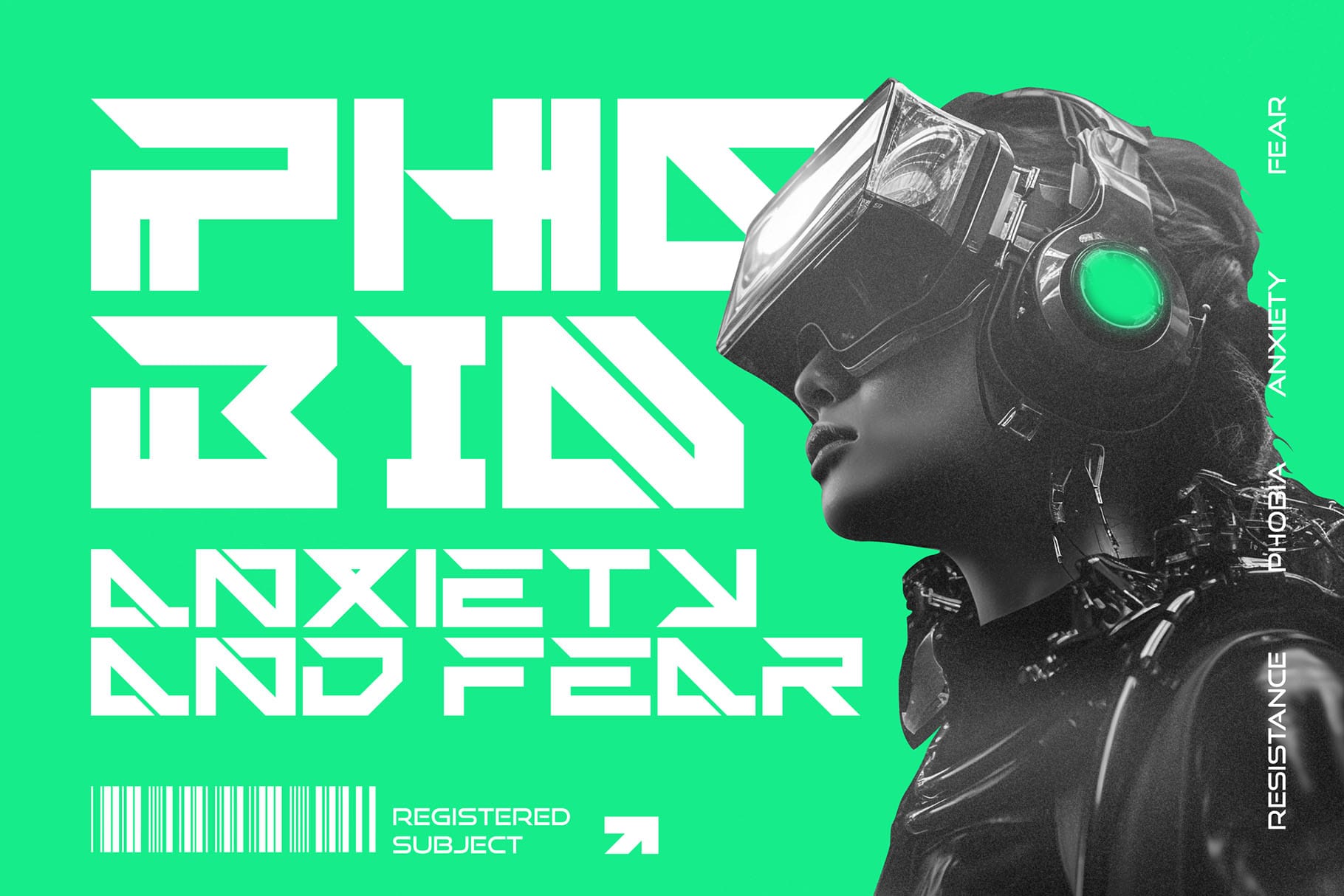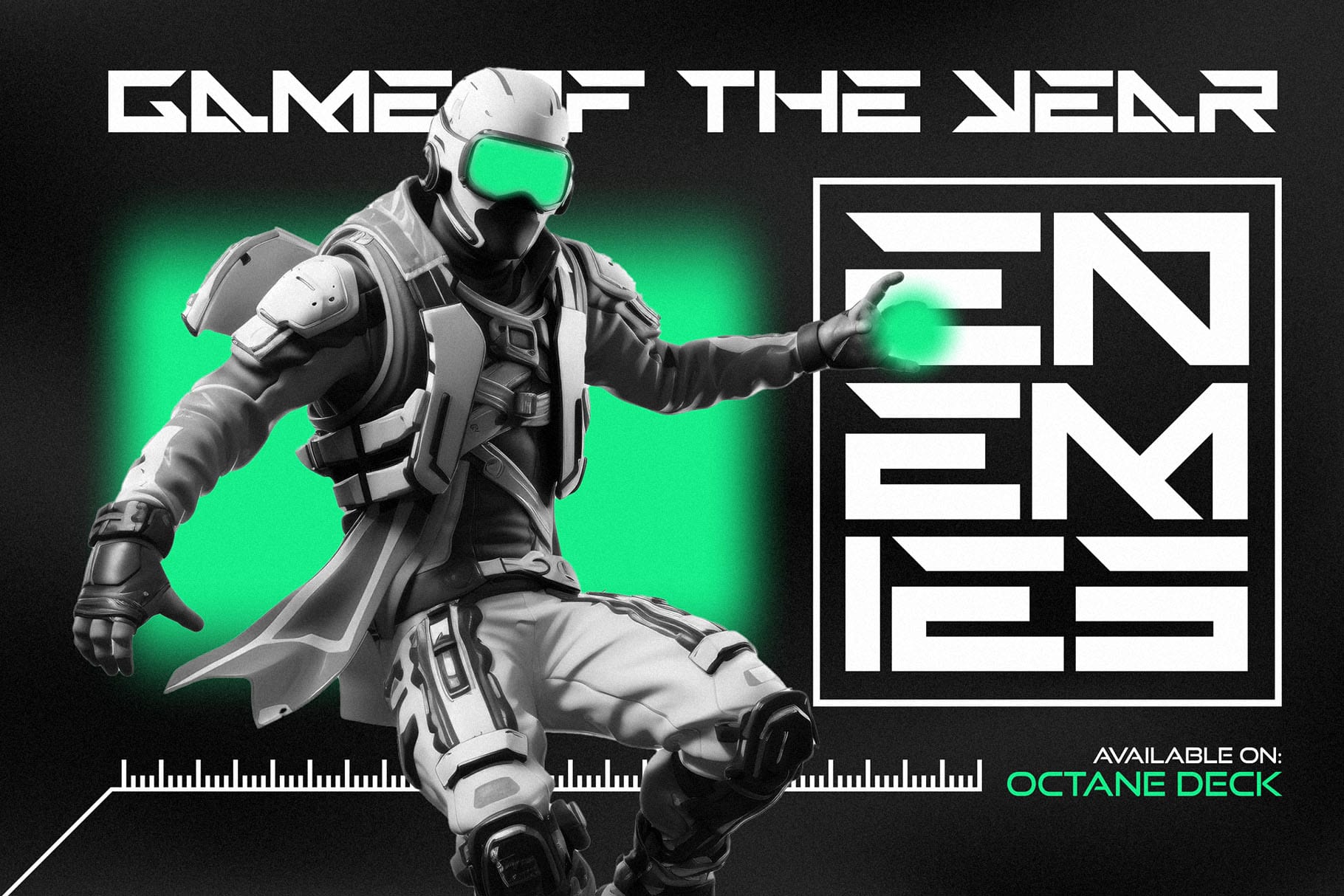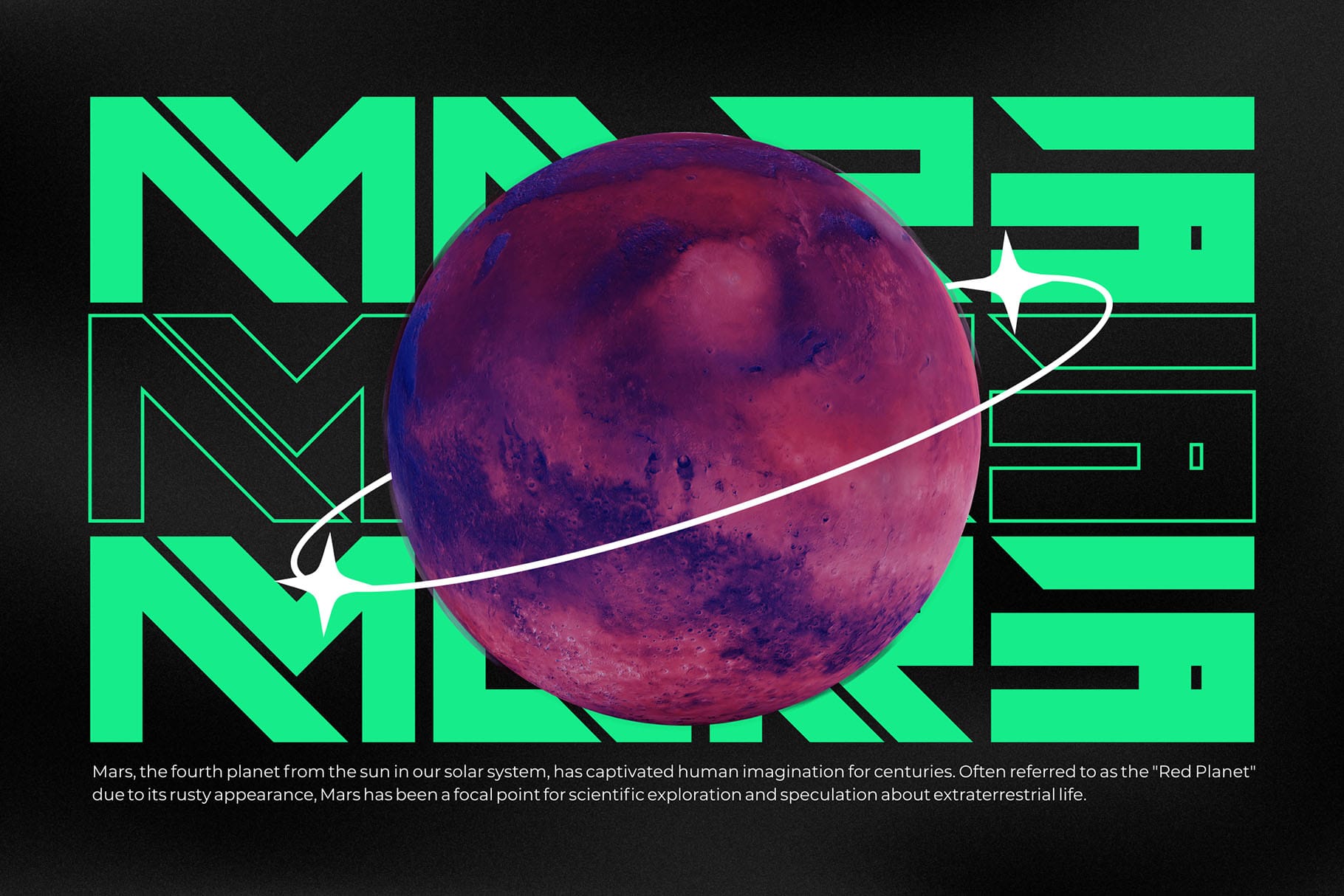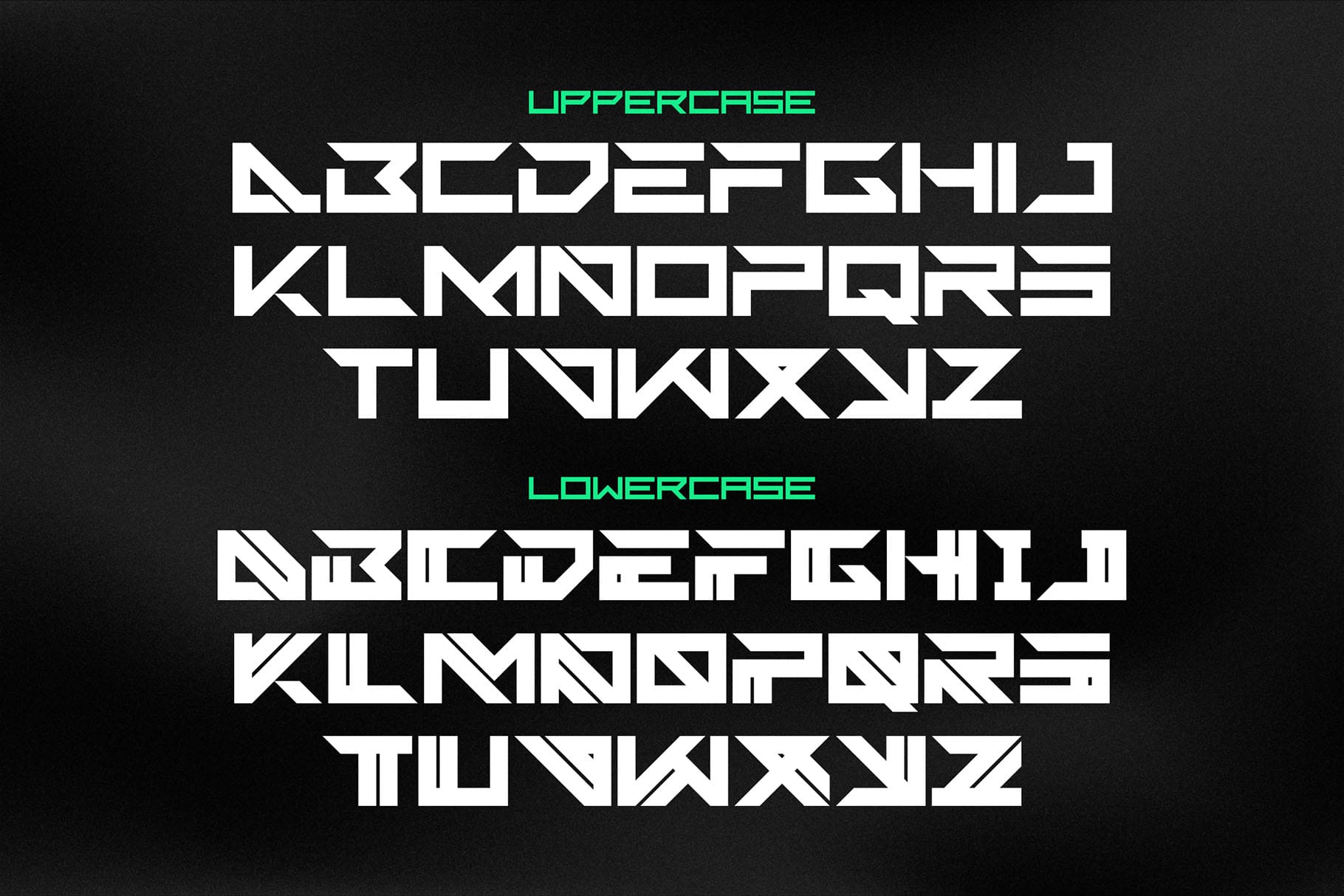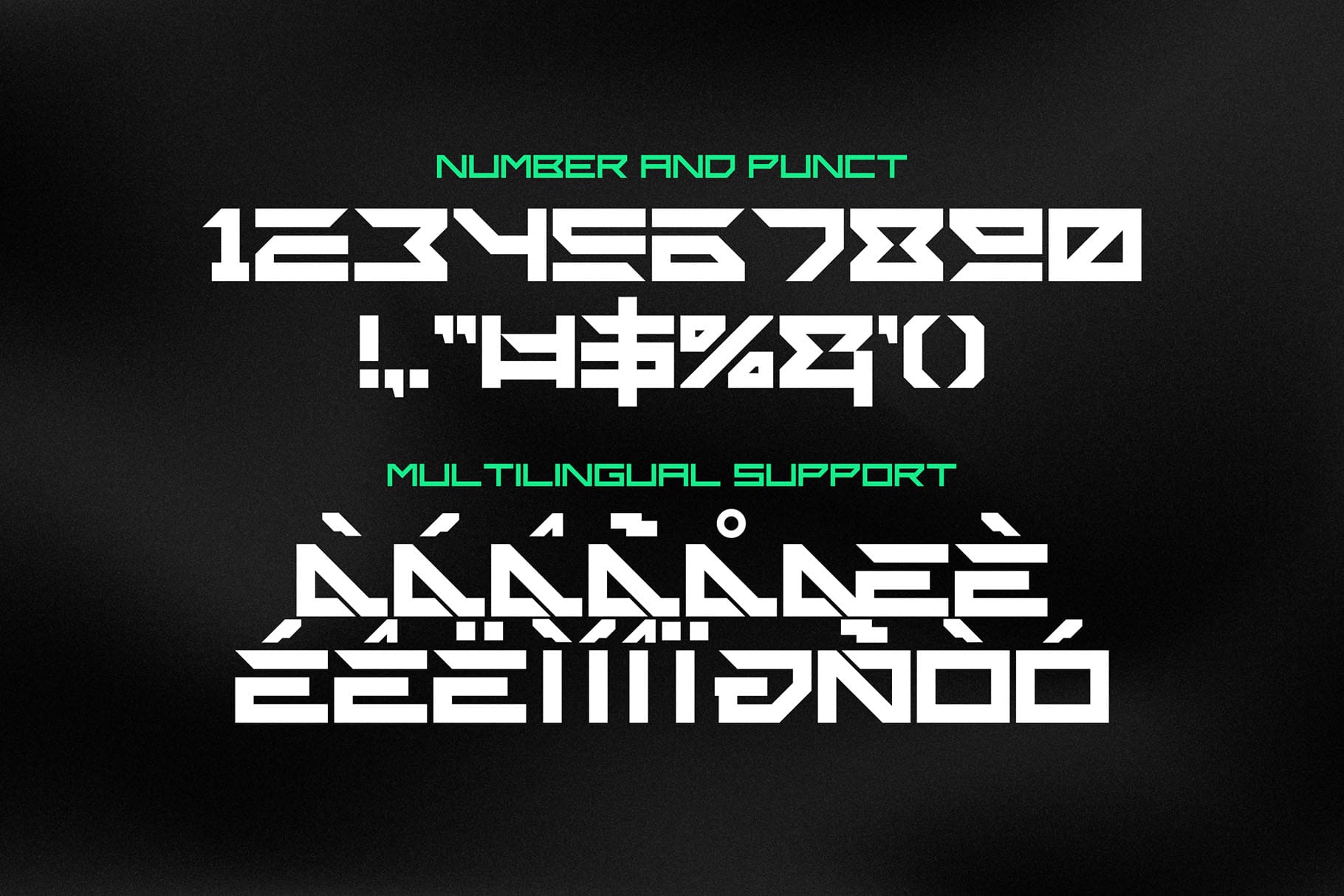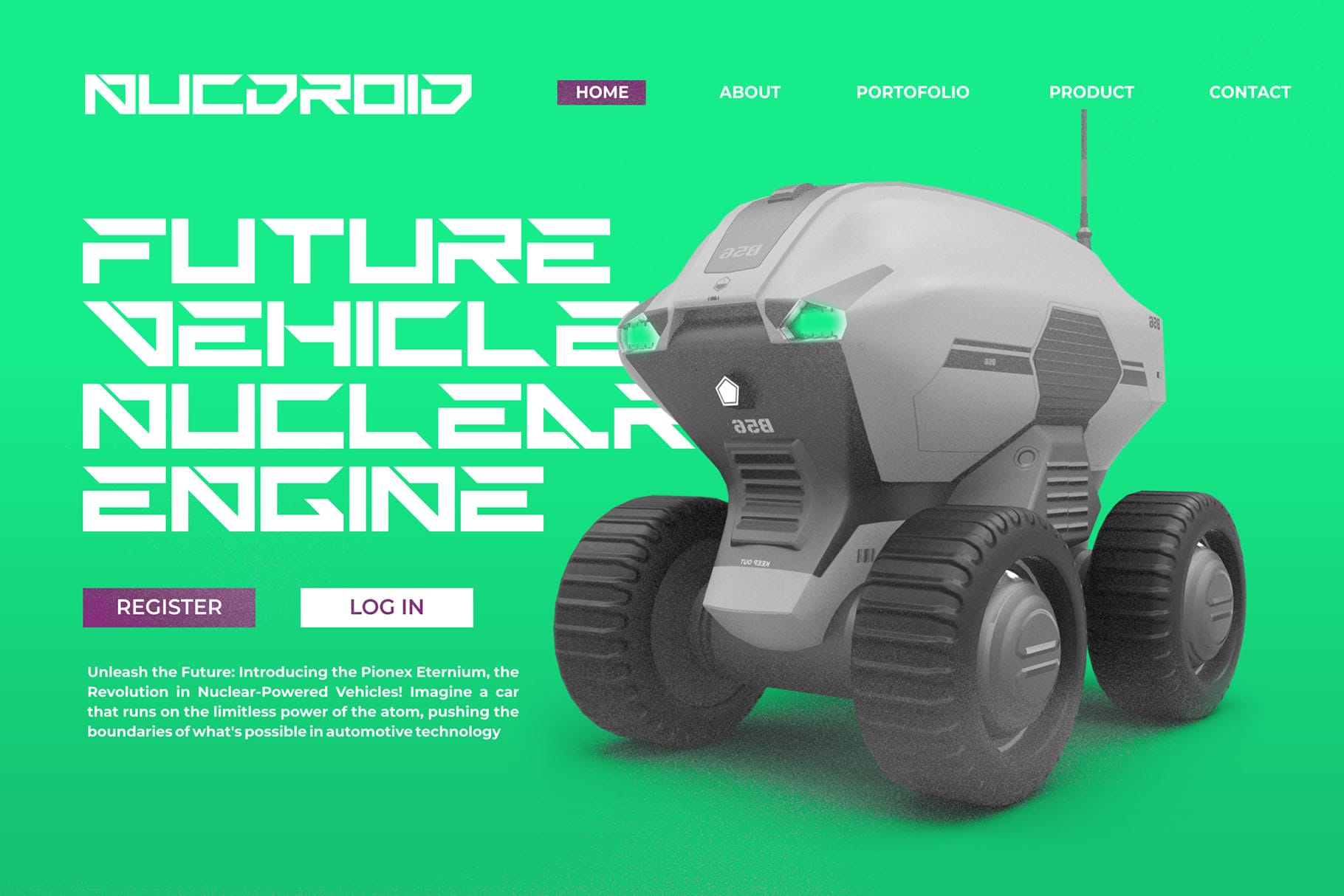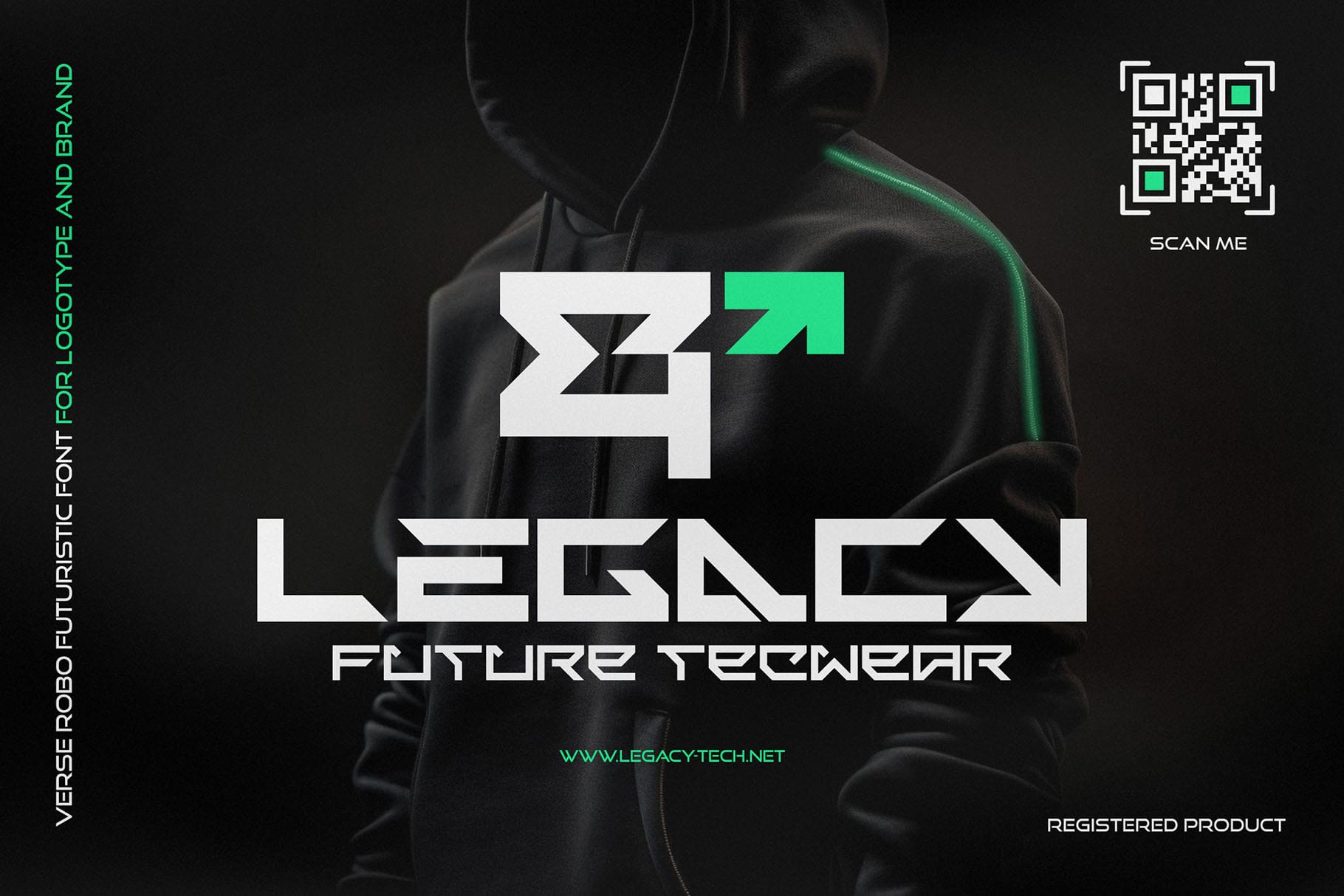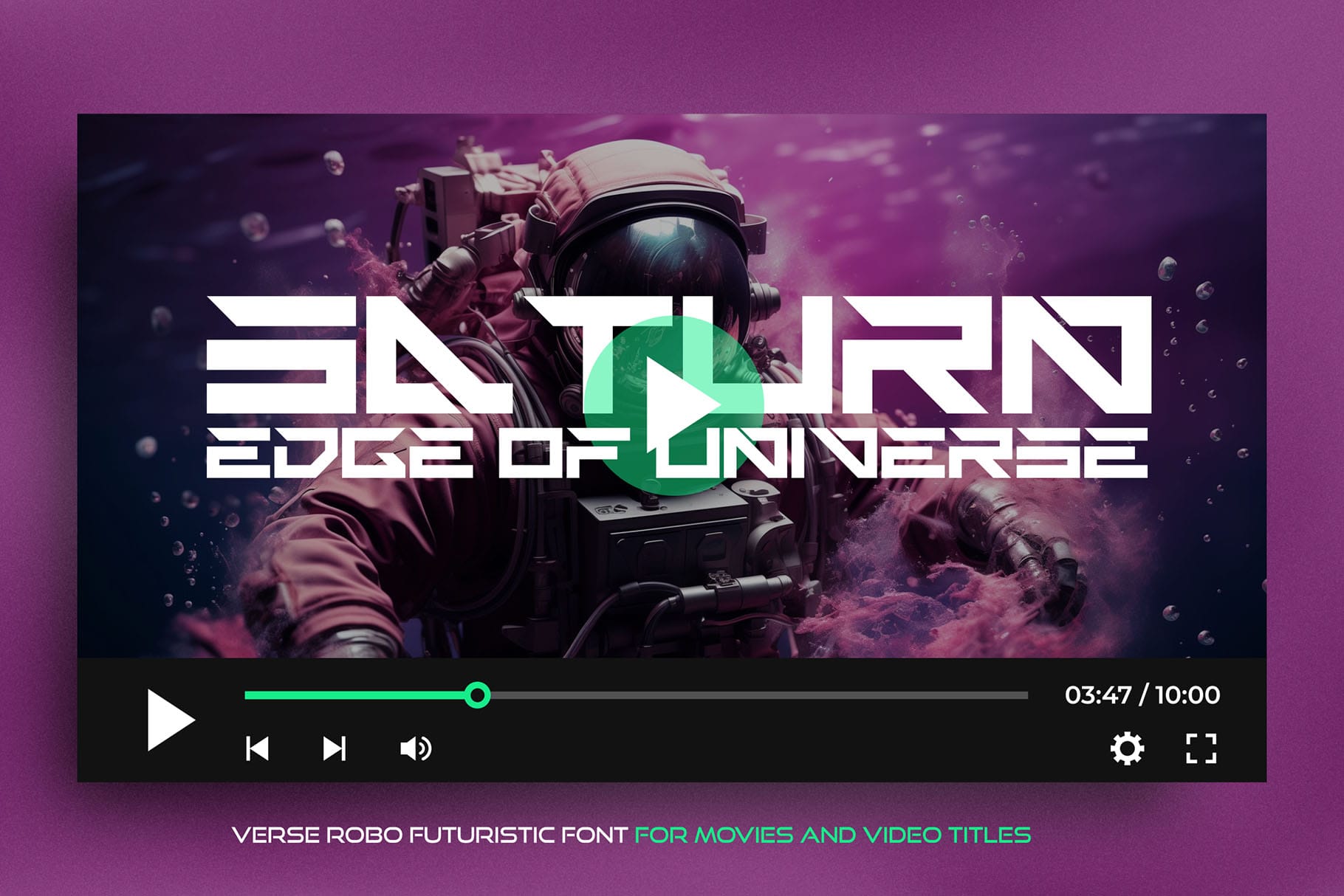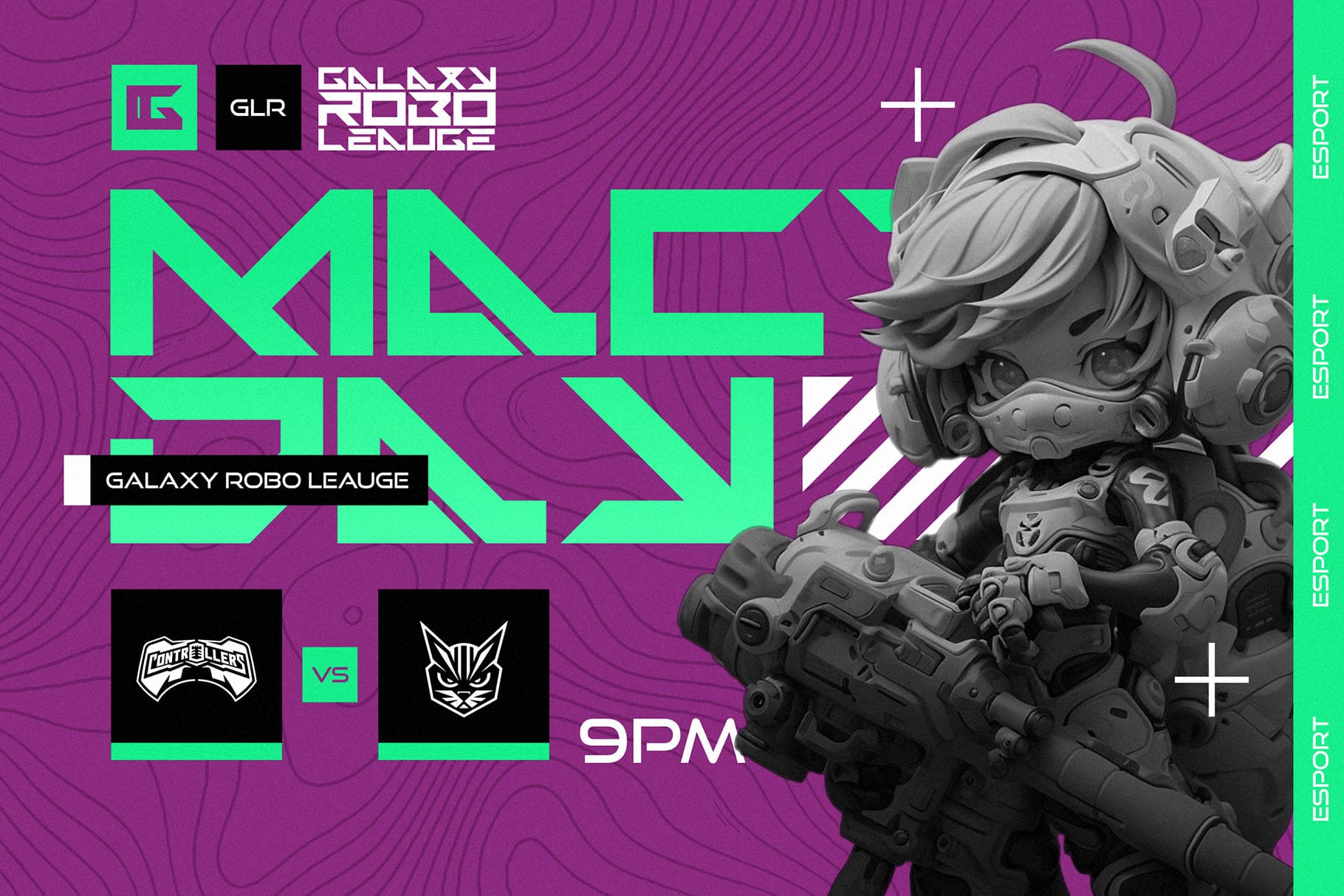
Verse Robo – Dystopian Futuristic Font for Bold Future-Driven Design
Verse Robo is a dystopian futuristic font created for designs that need a sharp, digital, and future-facing personality. Built for bold visual impact, this font brings a strong sci-fi atmosphere into branding, posters, gaming graphics, digital campaigns, and technology-inspired layouts.
Its visual tone feels mechanical, cinematic, and confidently modern. Verse Robo is made for projects that do not want to feel soft, ordinary, or overly decorative. Instead, it gives your typography a structured and futuristic edge, making it a strong choice for designers working with cyberpunk themes, robotic concepts, dystopian worlds, space-inspired visuals, and next-generation brand identities.
For creative professionals, Verse Robo offers a practical display style that can help headlines, logos, titles, and promotional graphics feel more distinctive. Whether you are building a concept for a game interface, a sci-fi movie poster, a tech product launch, or a futuristic apparel design, this dystopian futuristic font gives your words a strong visual direction from the first glance.
Verse Robo is designed with a futuristic display personality. The style leans into a dystopian and robotic mood, making it suitable for concepts that explore advanced technology, artificial intelligence, digital systems, cyber cities, and imagined futures.
This font works best when used with intention. It is especially effective for short text, strong titles, logo concepts, poster headlines, digital banners, packaging accents, and statement typography. Its character is bold enough to hold attention, while the futuristic mood makes it feel relevant for modern creative markets.
The overall personality of Verse Robo is not casual or traditional. It feels engineered, urban, and cinematic. That makes it a valuable choice for designers who want to create visuals with a strong future-world atmosphere without relying too heavily on extra graphic elements.
Use it when your project needs to feel sharp, intense, digital, and visually memorable.
Best Use Cases
Verse Robo is a strong fit for sci-fi, cyberpunk, gaming, technology, and entertainment-driven design projects. Its dystopian futuristic font style can support a wide range of creative needs, especially when the typography must become the main visual statement.
Use Verse Robo for futuristic logos, sci-fi movie titles, game covers, esports branding, streamer graphics, digital posters, cyberpunk event flyers, album artwork, YouTube thumbnails, tech startup concepts, NFT-style visuals, app presentation graphics, apparel prints, merchandise, packaging, and editorial headlines.
For brand designers, Verse Robo can help shape a strong identity for projects connected to robotics, AI, virtual worlds, gaming culture, futuristic fashion, digital music, or experimental creative campaigns.
Key Features
• Standard Characters
• Punctuation
• Stylistic Alternate
• Support Multilingual
Designers love fonts that can quickly set the mood of a project, and Verse Robo does exactly that. Its dystopian futuristic font character helps build a strong visual identity without making the layout feel flat or forgettable.
For logo designers, it offers a distinctive direction for tech, gaming, robotic, cyber, and sci-fi branding concepts. For poster designers, it helps headlines feel cinematic and high-impact. For digital creators, it gives social media graphics, thumbnails, and promotional visuals a stronger futuristic identity.